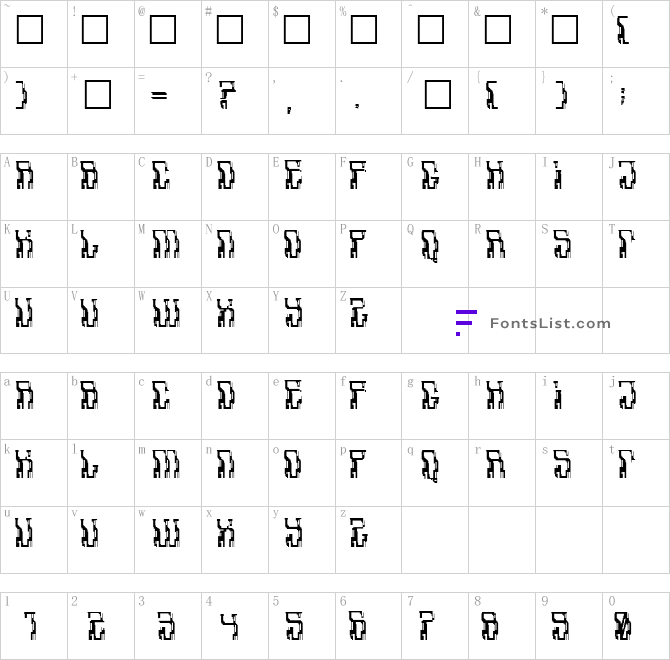
- Font Name:Aadavalus
Aadavalus.ttf is a very beautiful artistic font, Aadavalus.ttf is widely used in the design and printing of various books and pictures,Aadavalus.ttf has a strong visual impact,Aadavalus.ttf is a commonly used font in newspapers, magazines and books, and is used in posters, e-commerce Poster design, store design, logo design, font design and other fields.Aadavalus.